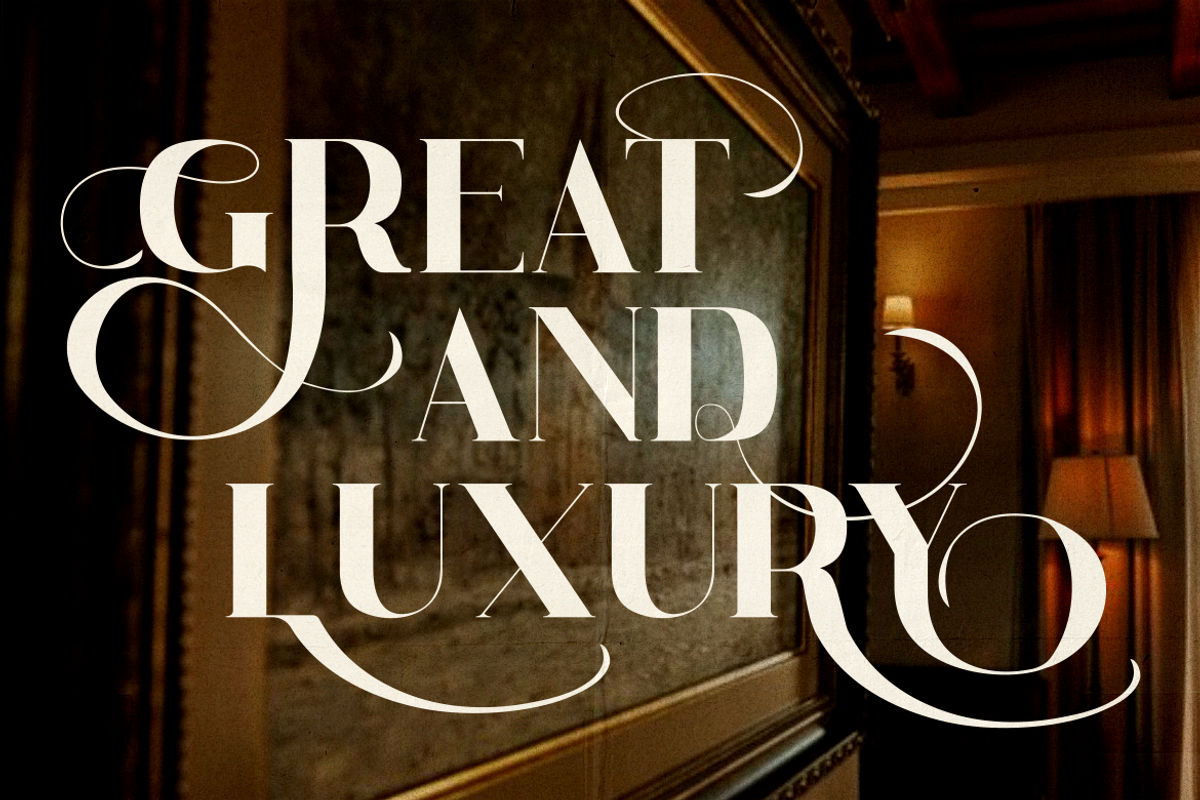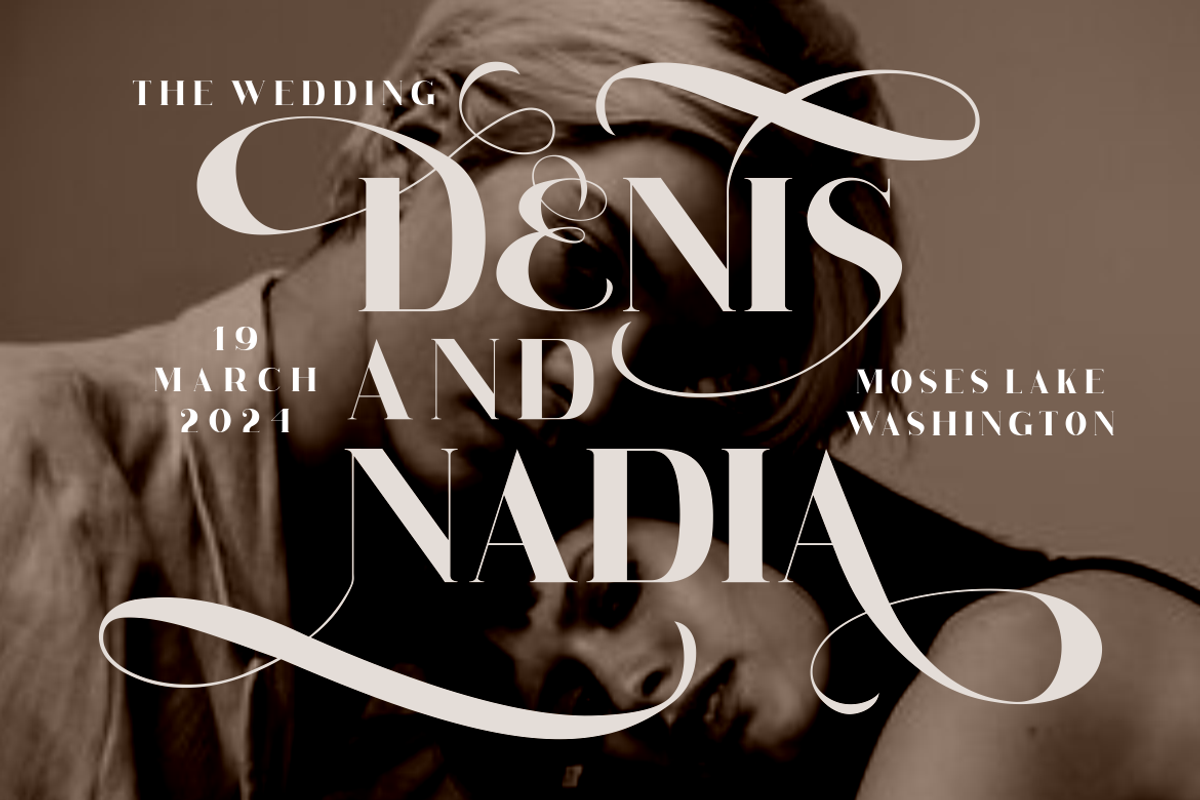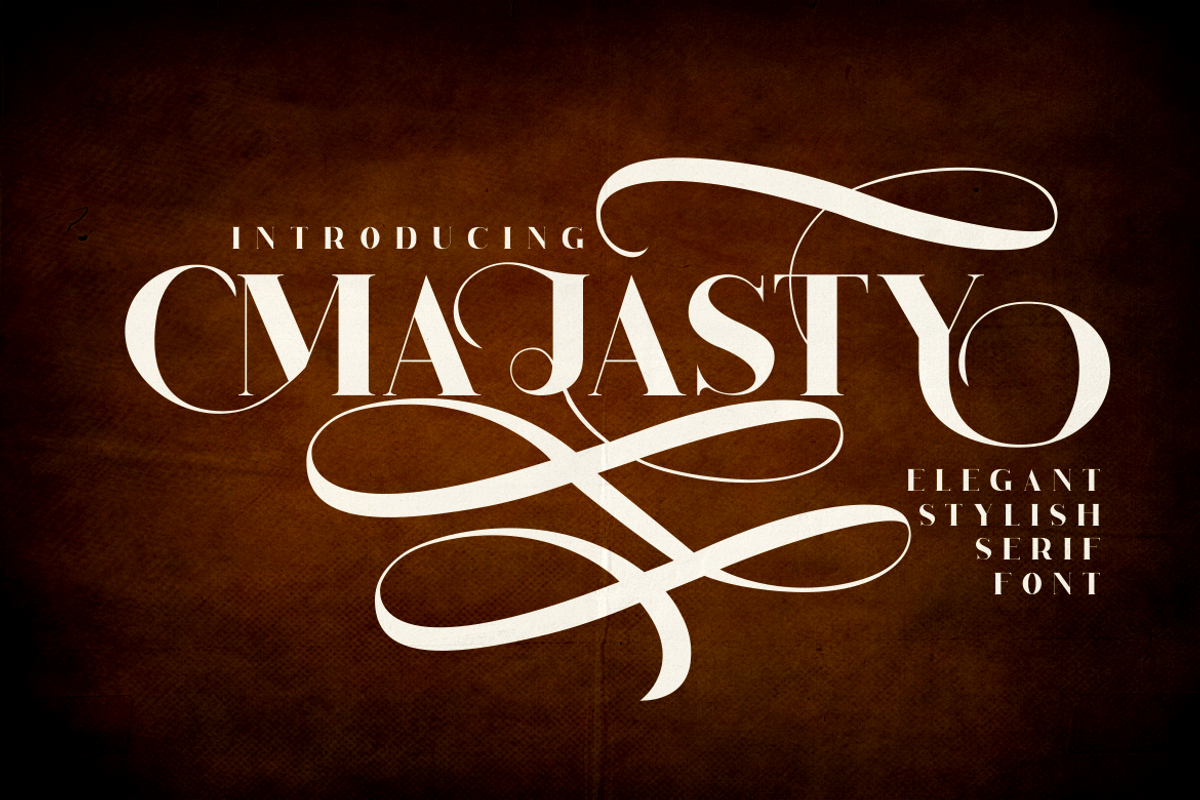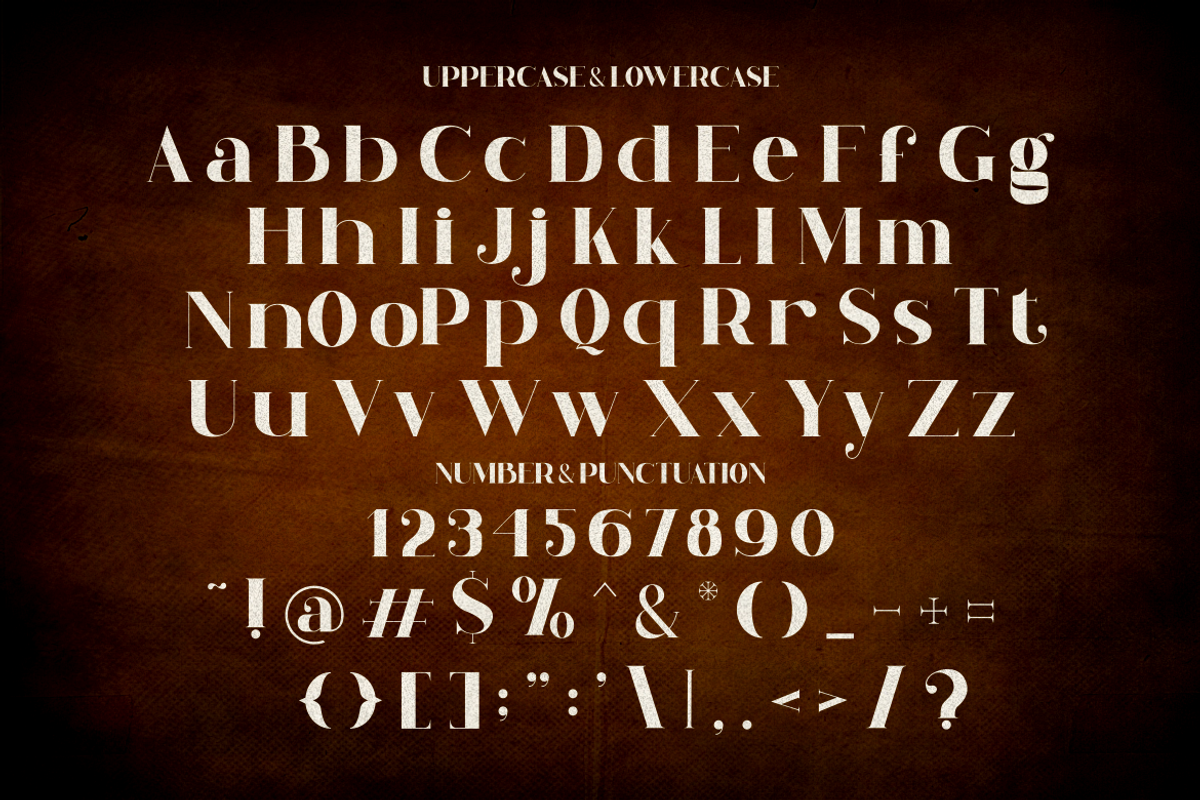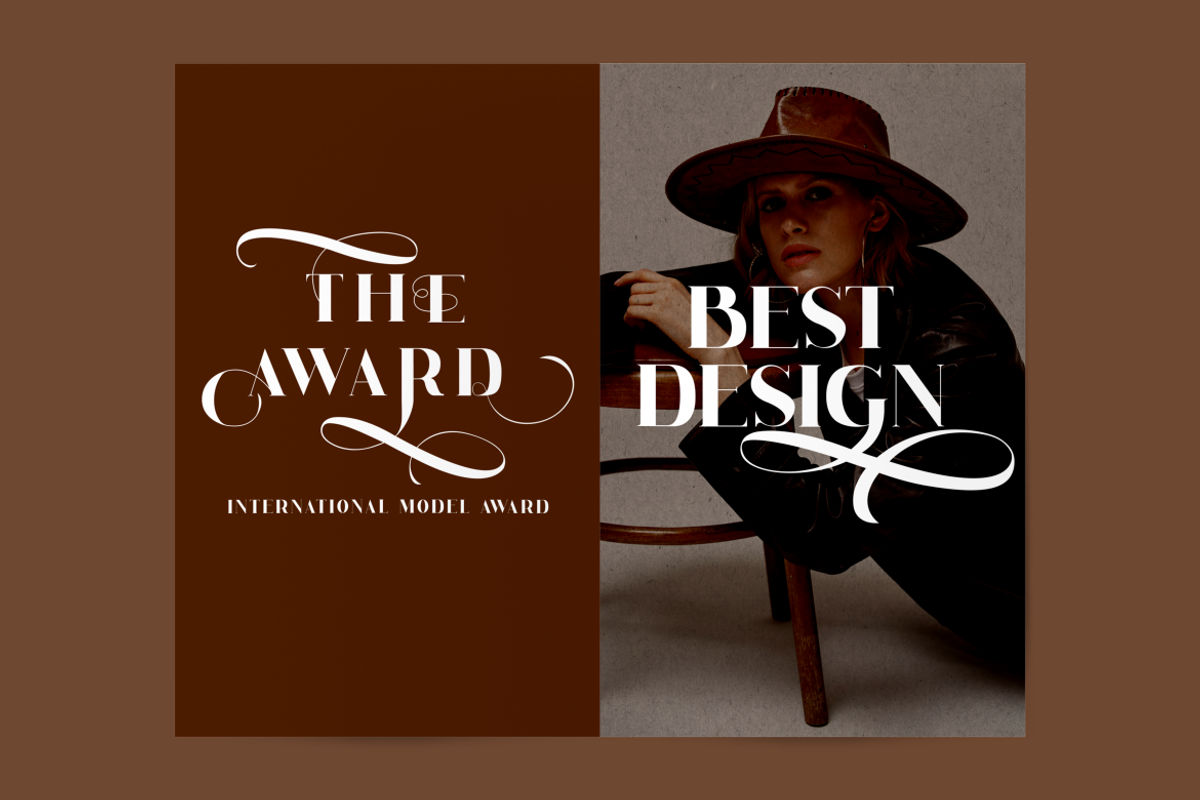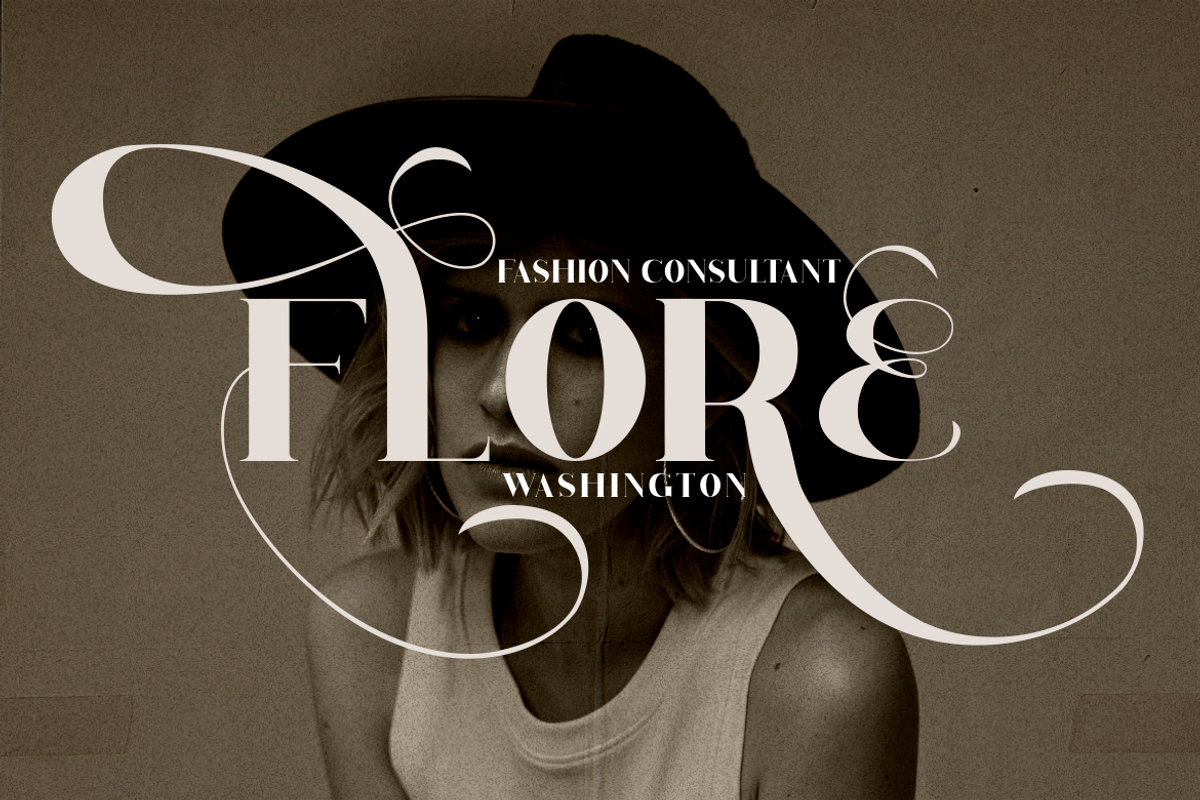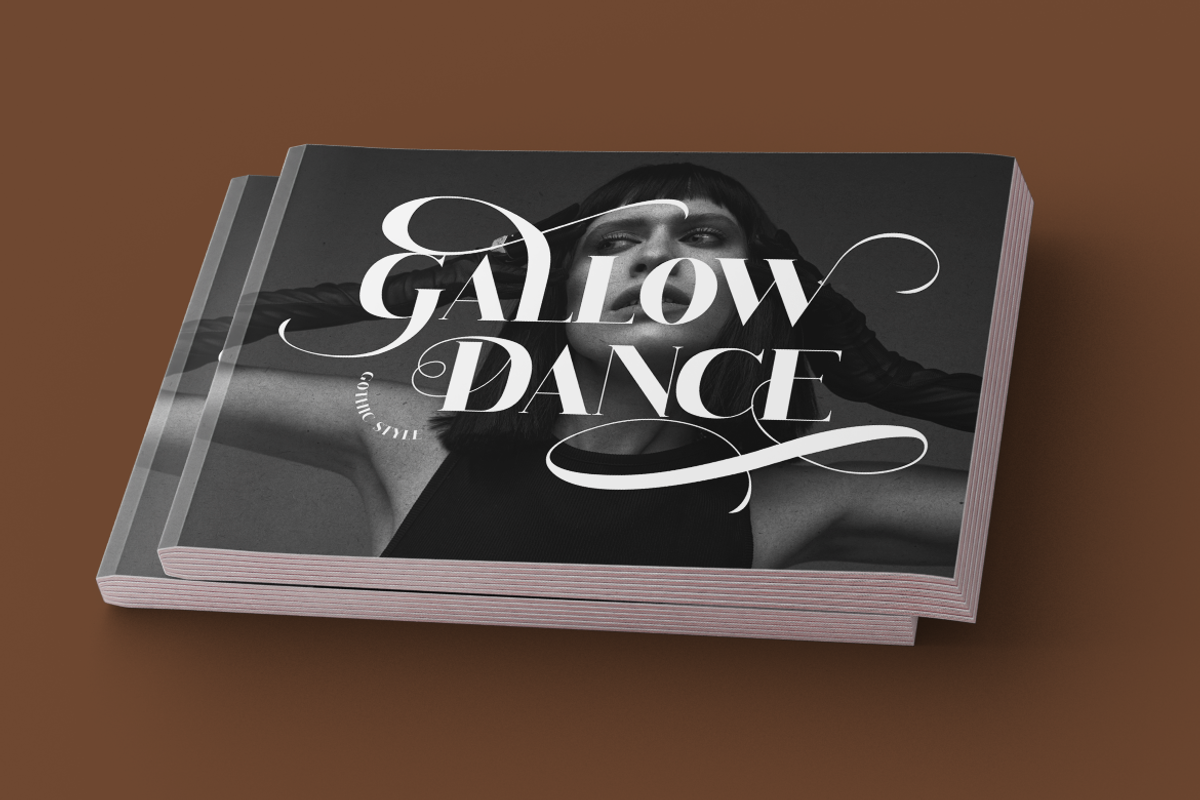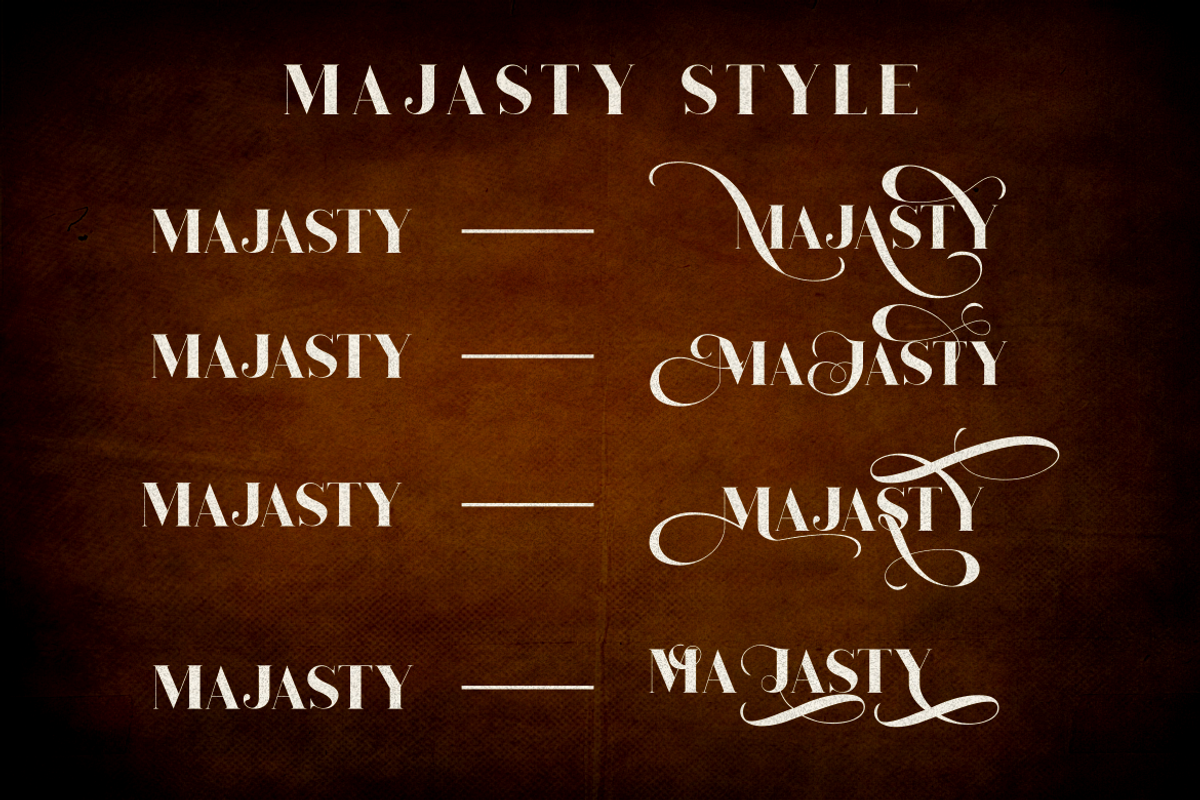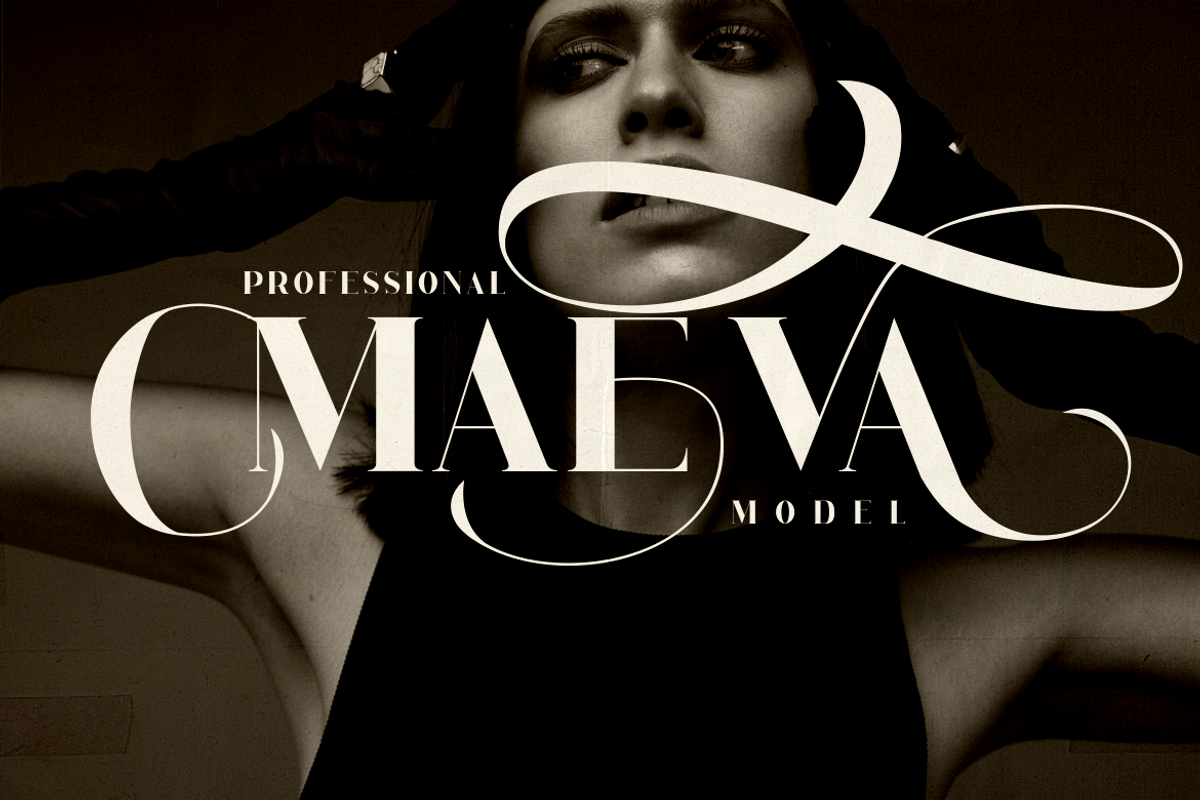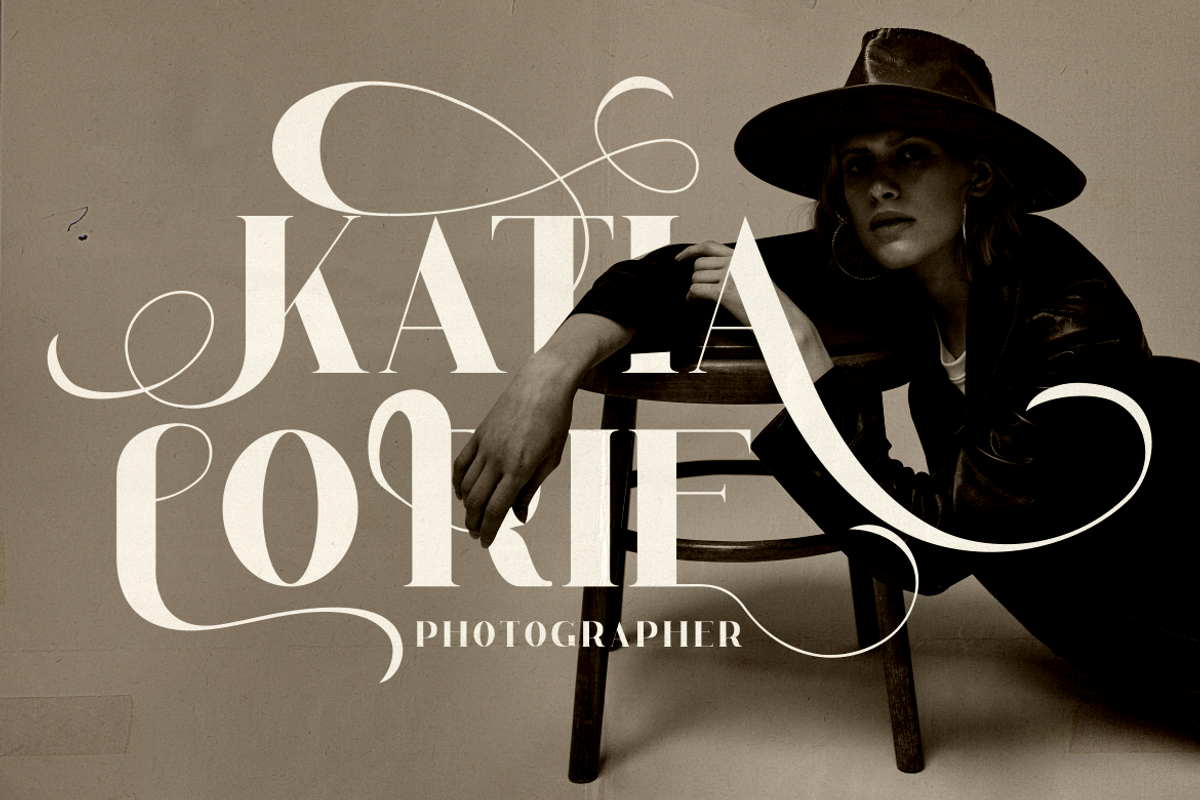
Majasty - Elegant Stylish Serif Font
Majasty - Elegant Stylish Serif Font, the epitome of style and sophistication. Majasty is a serif font that exudes elegance, making it an ideal choice for those seeking to infuse their branding with a sense of high-end quality. Its sleek lines and refined curves are meticulously designed to create a visual harmony that is both classic and contemporary. Whether it’s for a logo that demands attention, branding that defines luxury, crafting that delights, or invitations that enchant, Majasty is the font that will elevate your design to new heights.
Majasty’s versatility extends to packaging that tells a story, posters that captivate, titles that intrigue, business communications that impress, greeting cards that warm the heart, stickers that pop, children’s books that inspire, and magazines that draw the eye. This font is not just a typeface; it’s a statement of class and a celebration of design. With Majasty, your projects will not only stand out; they will resonate with an air of exclusivity and charm.